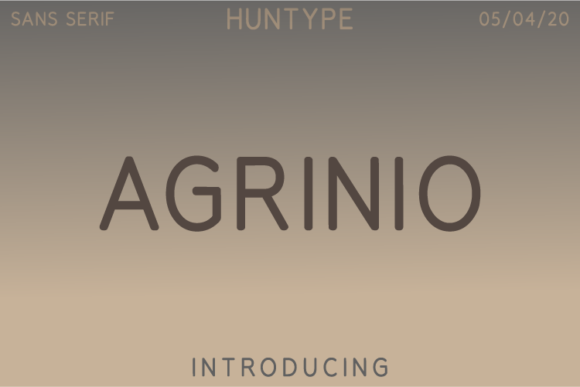
Introduction to Agrinio Font
Agrinio is a distinct, elegant sans serif font that blends traditional influences into a contemporary aesthetic.
It will look particularly adept when used in logos, branding, packaging design, and much more This masterfully designed font is a true must-have.
Key Features of Agrinio Font